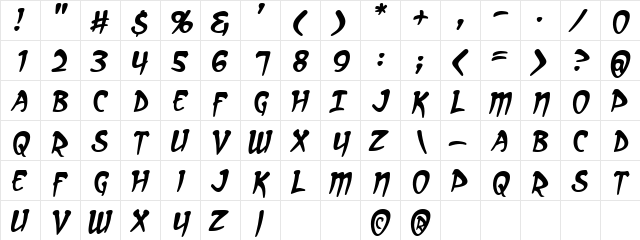
Arcanum Italic
Design Context for Arcanum Typeface
Arcanum is a composed and adaptable typeface that performs quietly and consistently across a wide range of design contexts. The dynamic lean of this cut emphasises speed and emphasis in any layout.
Pro Tip: Try Arcanum for annotation and caption copy alongside an upright companion — the contrast in angle creates a dynamic but ordered typographic system.